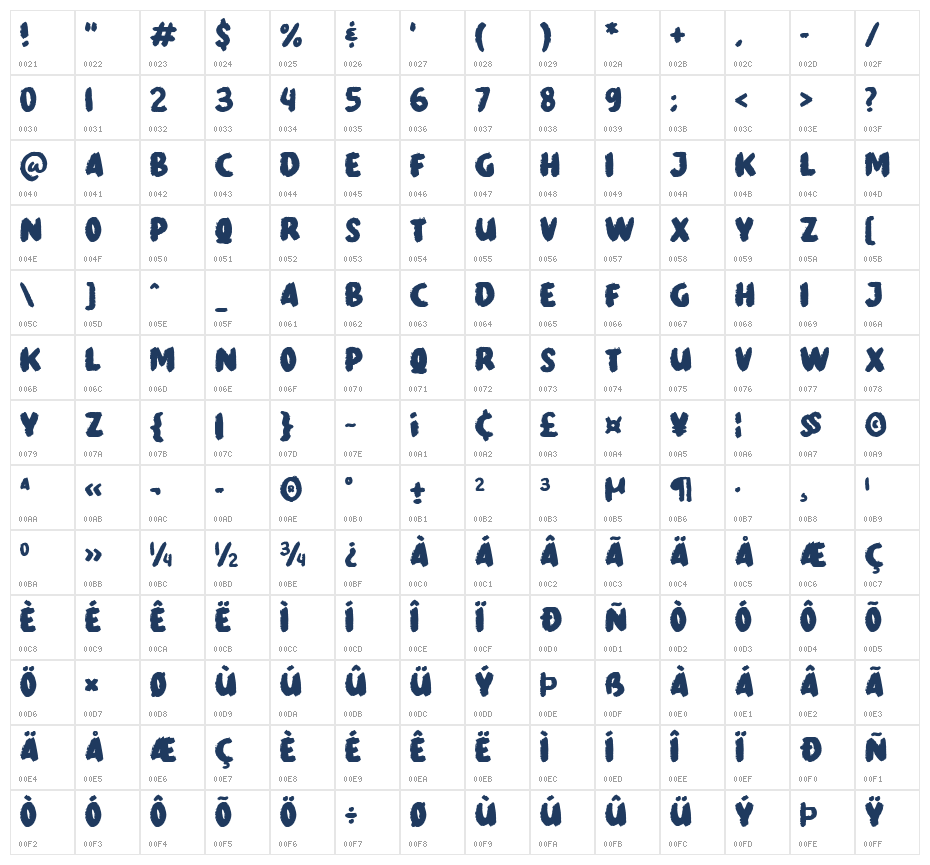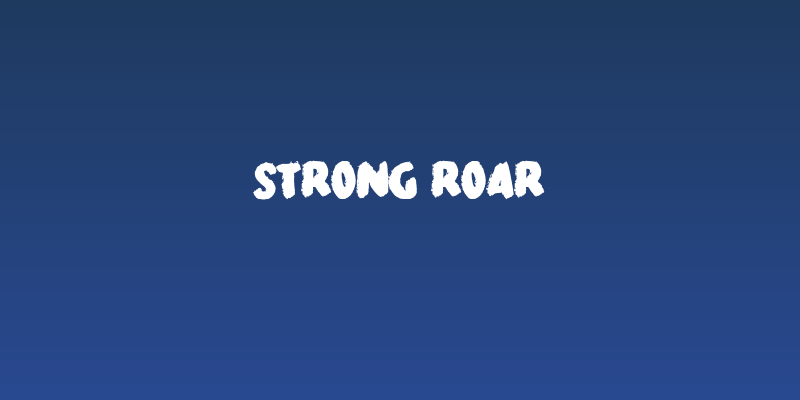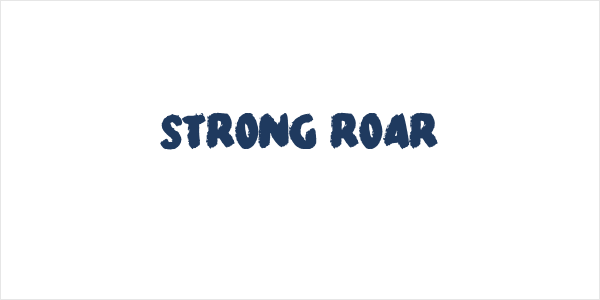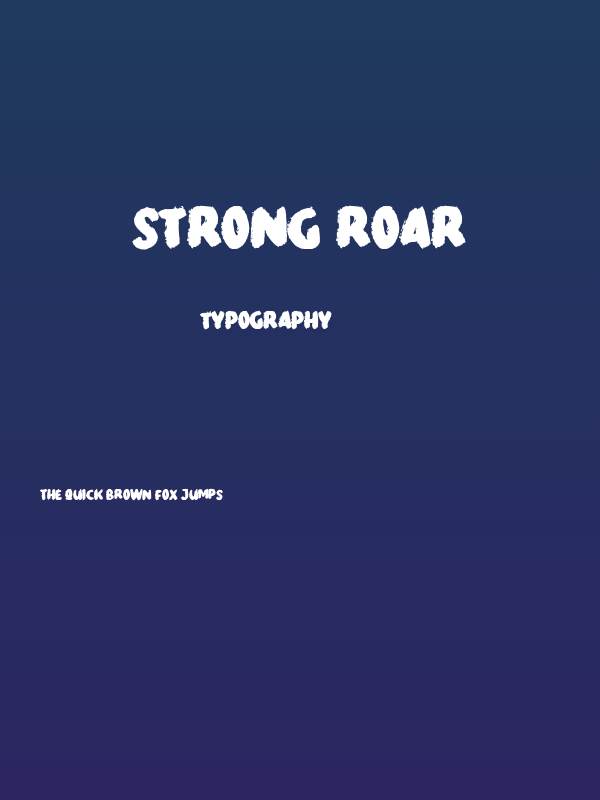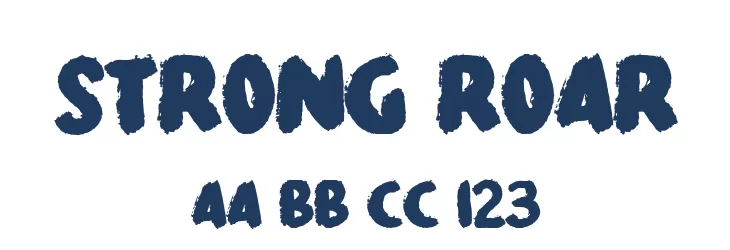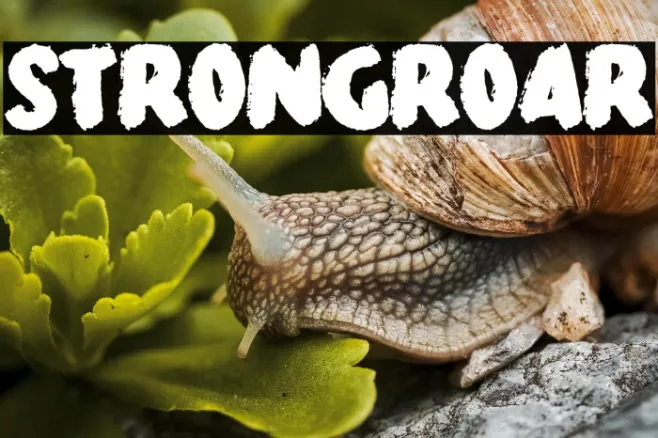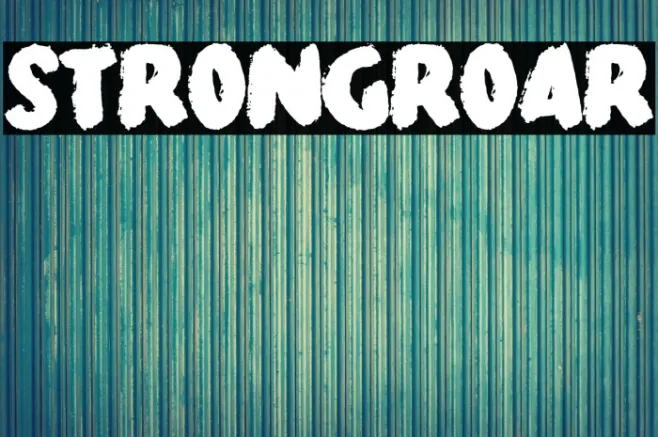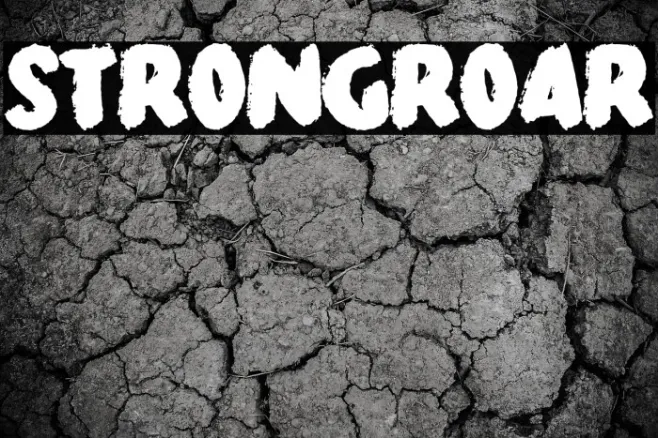
Strong Roar Font
Strong Roar Description
Bold, textured, brush-style display font with a casual and playful appearance.
| Overall Style | Casual, Handcrafted, Artistic |
| Use Case | Headlines, Posters, Logos, Packaging |